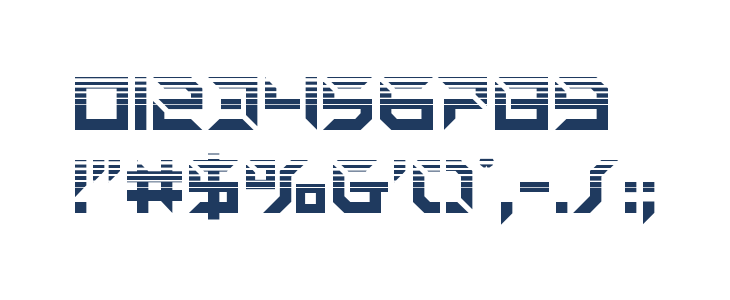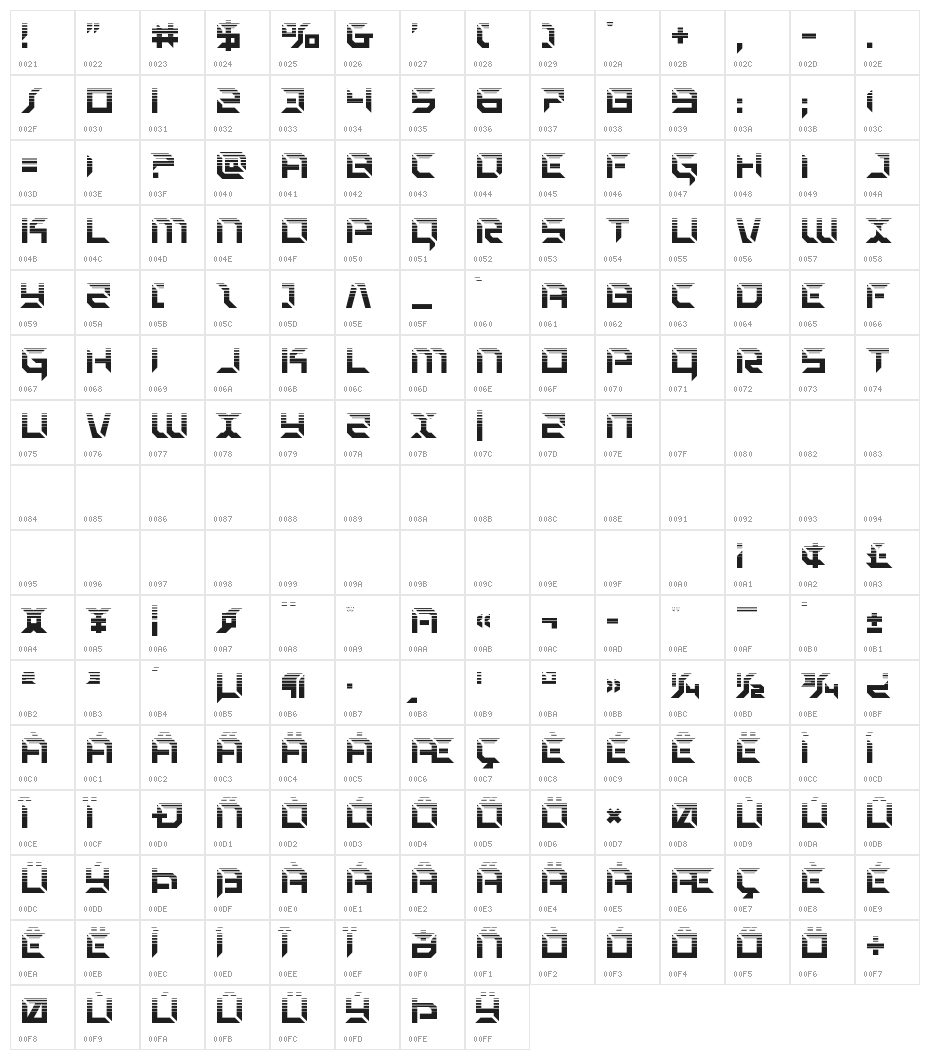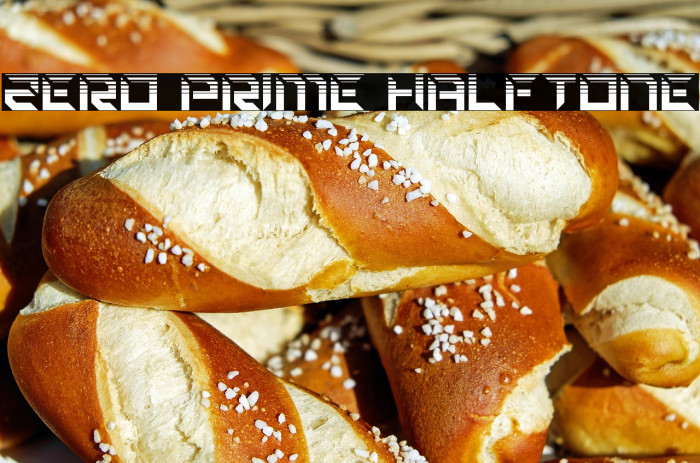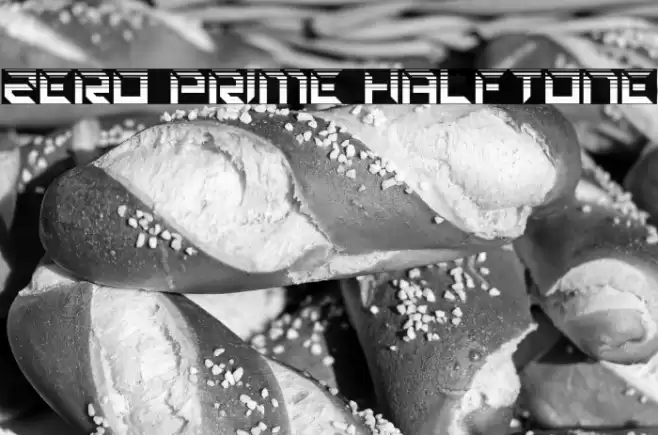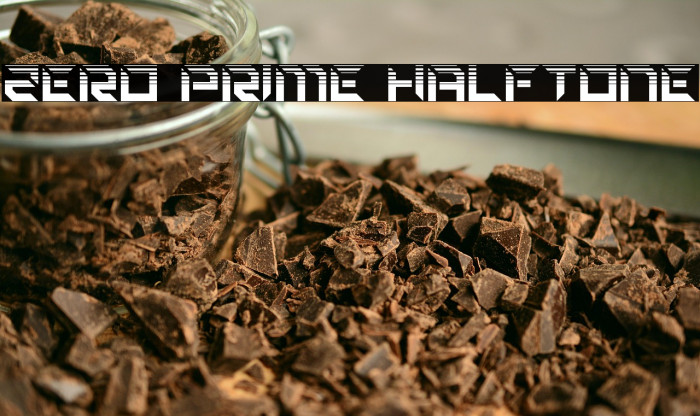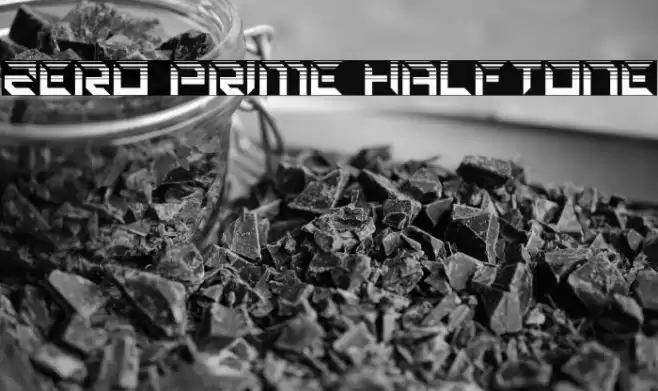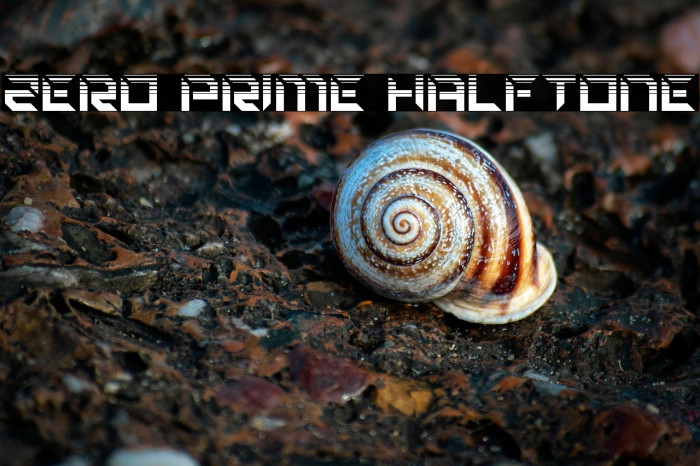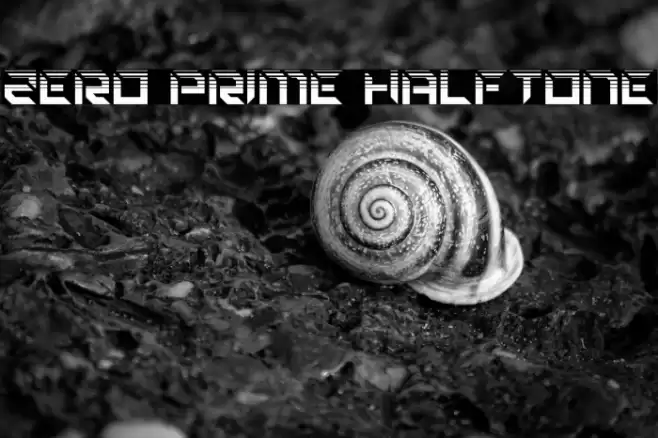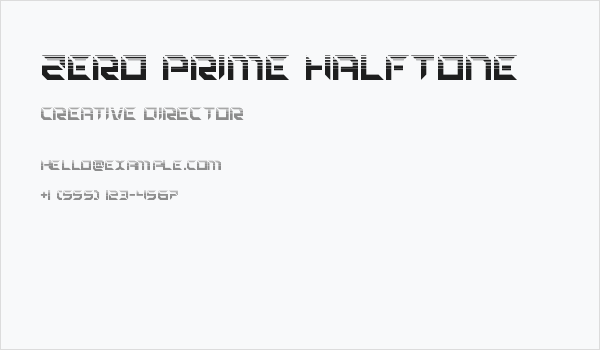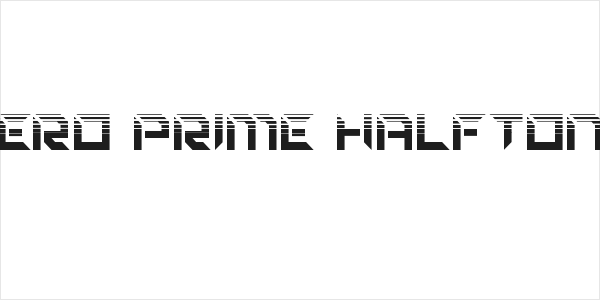
Zero Prime Halftone Font
Zero Prime Halftone Description
This font features a bold, futuristic design with a halftone effect that creates a sense of depth and dimension. The characters are constructed with sharp angles and geometric shapes, giving it a modern and edgy appearance. The use of horizontal lines within the characters adds a unique texture, reminiscent of digital or technological themes. This font is highly stylized, making it ideal for projects that require a strong visual impact. The uppercase and lowercase letters maintain a consistent style, while the numbers and special characters are designed to match the overall aesthetic.
| Overall Style | Futuristic, Modern |
| Proposed Projects | Ideal for sci-fi themed posters, video game titles, tech branding, and digital art projects. |